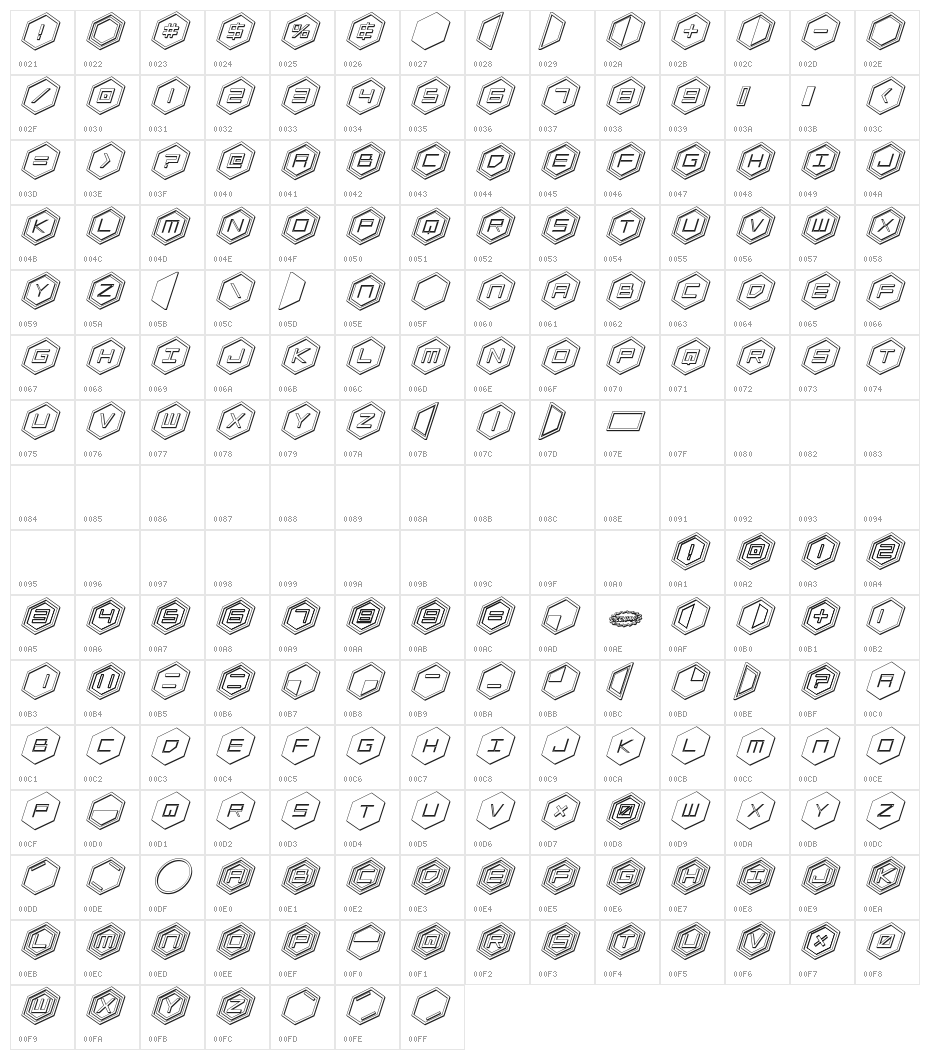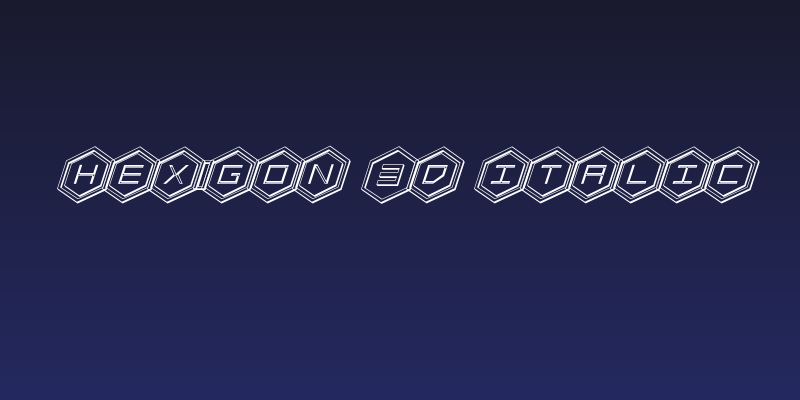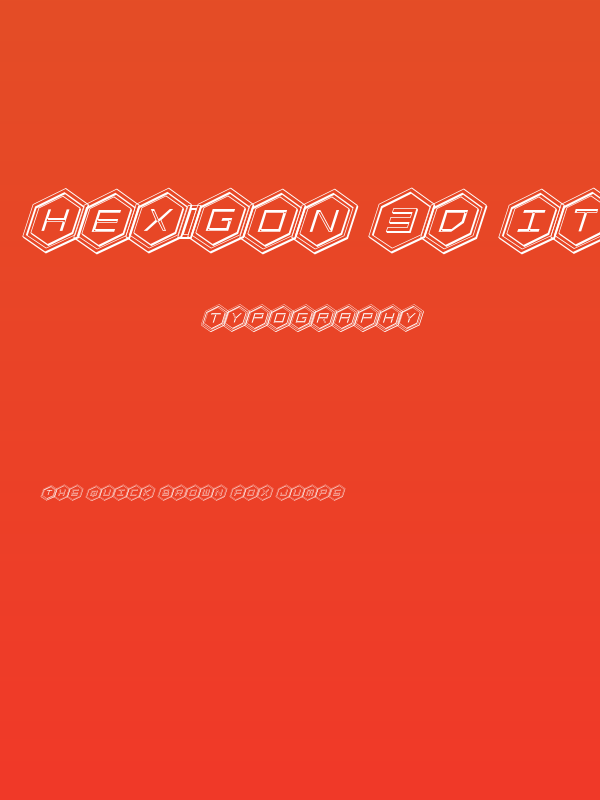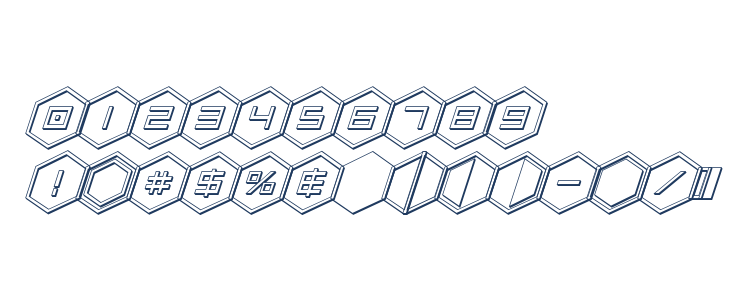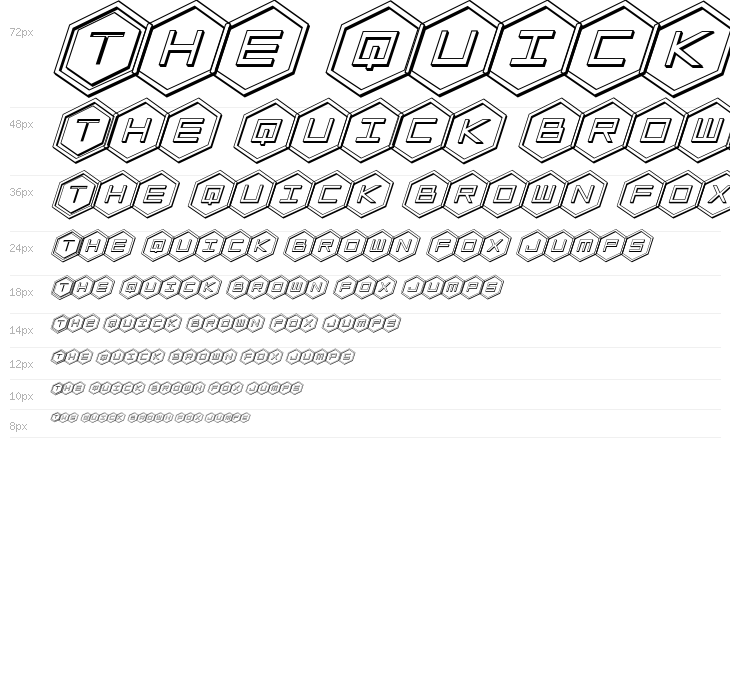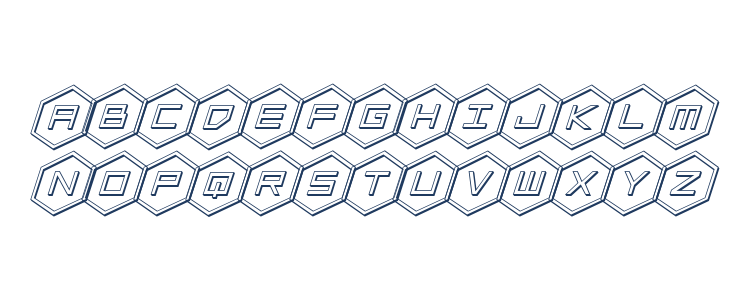
HEX:gon 3D Italic Font
HEX:gon 3D Italic Description
This font features a unique 3D hexagonal design, where each character is encapsulated within a hexagon, giving it a futuristic and geometric appearance. The letters are bold and italicized, adding a dynamic and modern flair. The font's structure is consistent across uppercase, lowercase, numbers, and special characters, maintaining the hexagonal theme throughout. The lines are clean and sharp, with a medium contrast in stroke thickness, enhancing its readability while maintaining a distinctive style. This font is ideal for projects that require a strong visual impact and a modern, tech-inspired aesthetic.
| Overall Style | Modern, Futuristic |
| Proposed Projects | Ideal for tech branding, futuristic posters, video game titles, and sci-fi themed designs. |